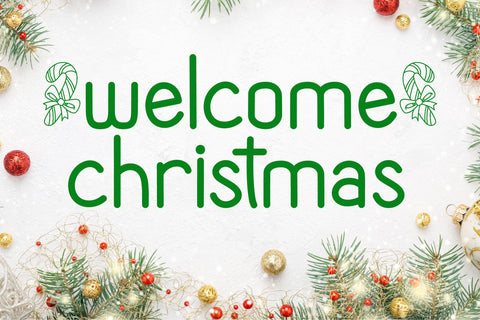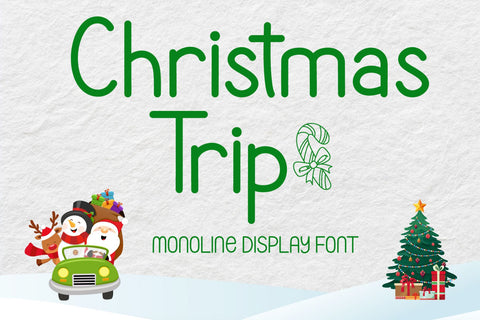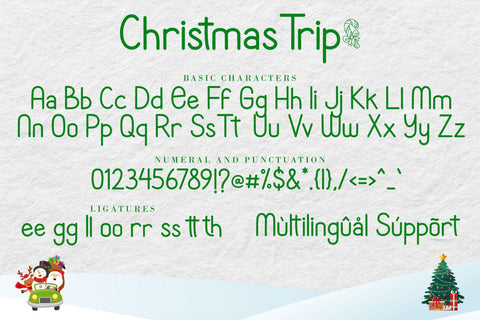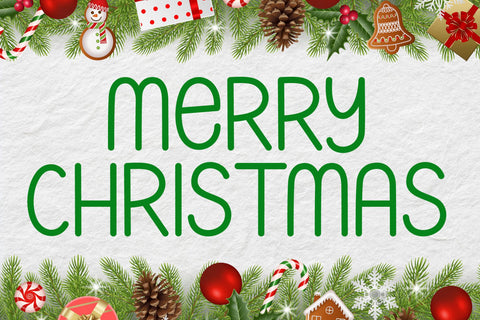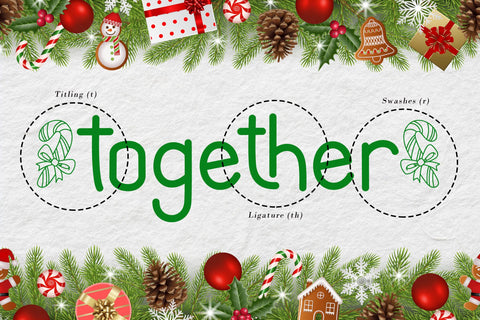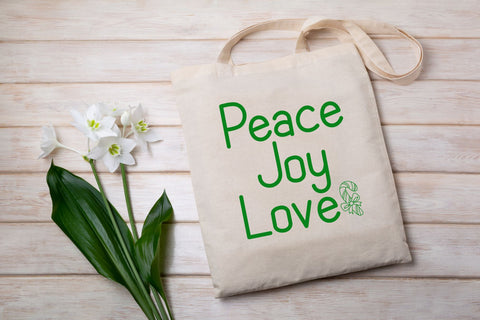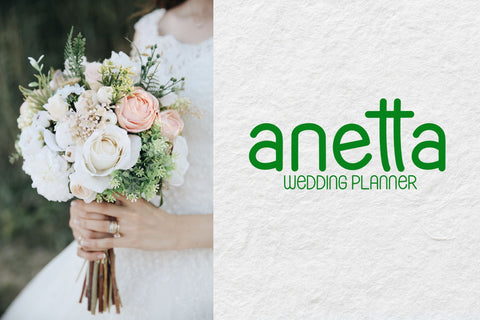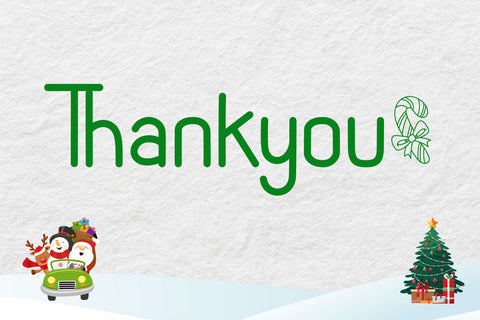
Christmas Trip
Christmas Trip is a cozy monoline display font that feels warm and festive. Its letters are soft and playful, perfect for greeting cards, gift tags, and holiday-themed projects, this font brings a cheerful and nostalgic ambiance to your words. The style captures the joyful spirit of the Christmas season.
Christmas Trip Features :
- (a-z) titling, (a-z) swashes, ligatures
- Support multilingual; ä ö ü Ä Ö Ü ß ¿ ¡